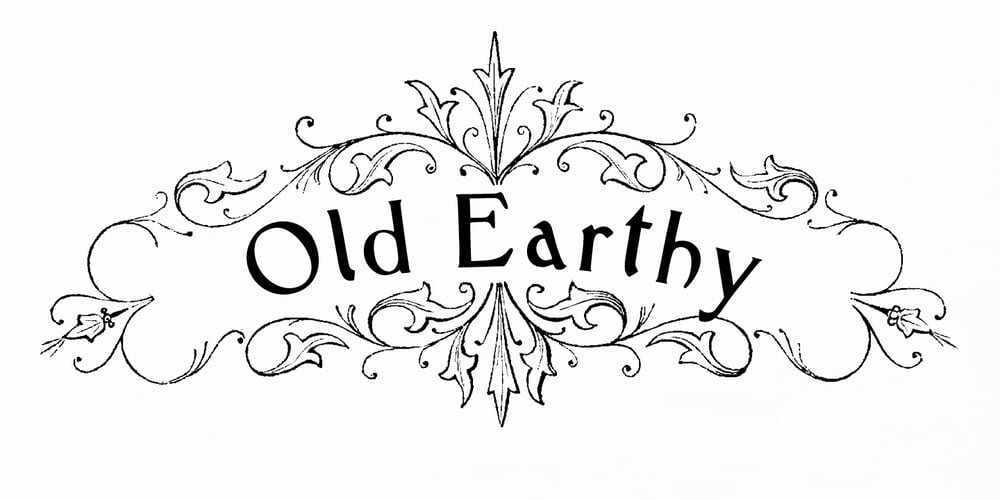
Old Earthy
Old Earthy font
Old Earthy Font Family was designed by Andreas Brunelius and published by Gustav & Brun. Old Earthy contains 1 styles and family package options. Old Earthy is a hand drawn font inspired by the mid 19th-century art movement with William Morris and the Pre-Raphaelite Brotherhood in the front line. The art and the patterns from that time is reflected in Old Earthy. It comes with a set of basic English/Latin letters and some west European diacritics.